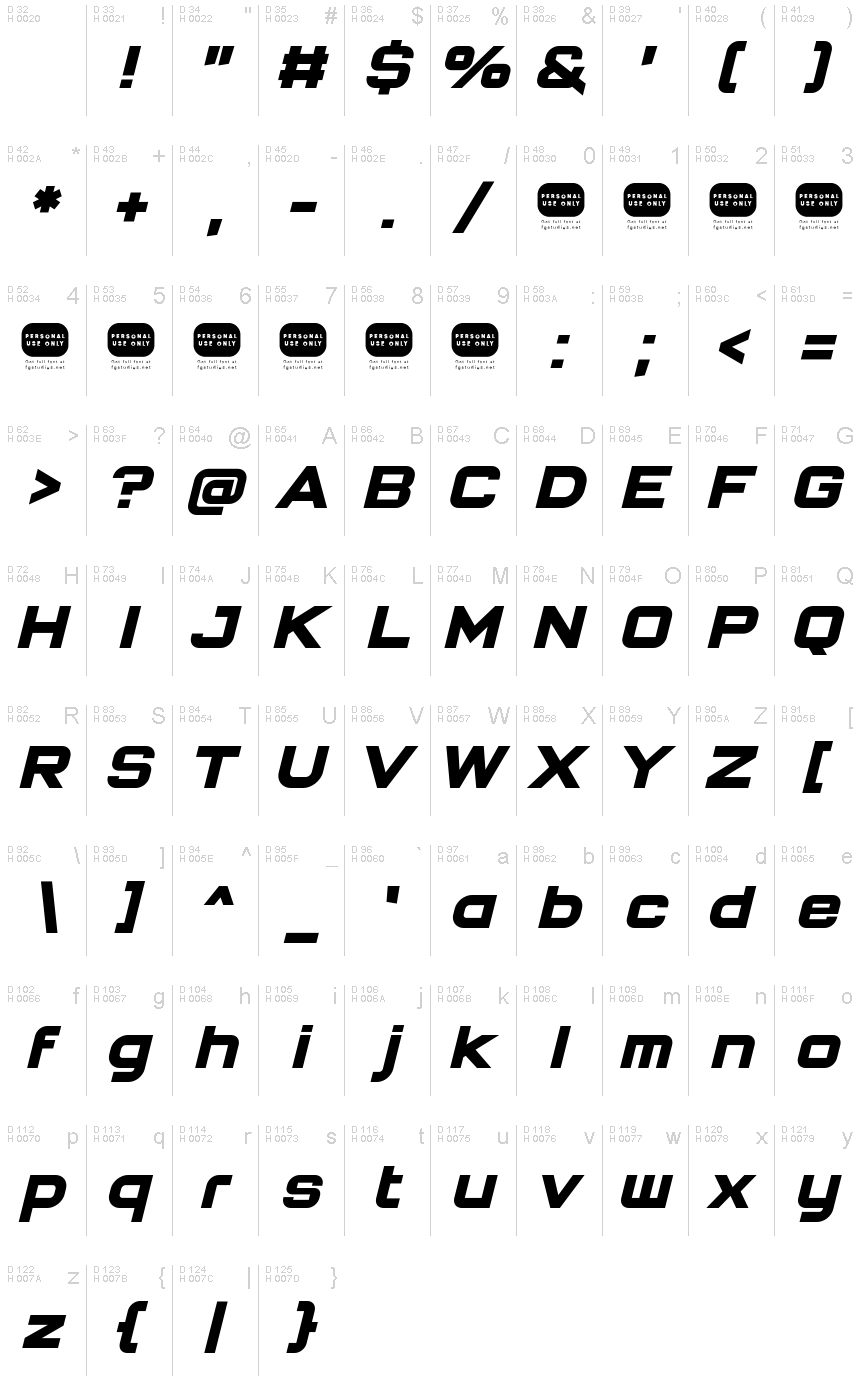
Monday Pro
Monday Pro font by FG Studios is a unique bold display font that takes the modern techno approach. With rounded dynamic terminals, this futuristic typeface sets an upbeat tone with its geometric design and expanded width for maximum character visibility. The overall modern style of this free techno display font makes it a suitable fit for all types of digital projects.
Explore Monday Pro beyond the digital space! A great match for advertising typography, labels, album art covers, apparel design, gaming interfaces, highlight reels in sports videos etc. Add to student projects such as posters or magazines seeking a trendy feel while keeping professional visual standards high too!